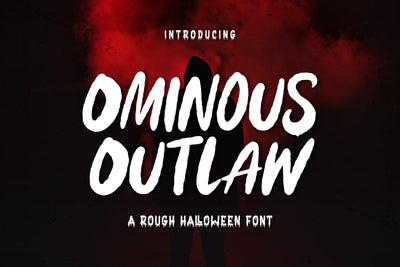
Ominous Outlaw - Rough Display Font
Ominous Outlaw is a stunning rough display font with modern feels. It will be perfectly used for Branding, Logo Design, Lettering, Logotype, Clothing, Poster, magazine, packaging, posters, shopping bags, t-shirts, book covers, photography, special events and other design project.